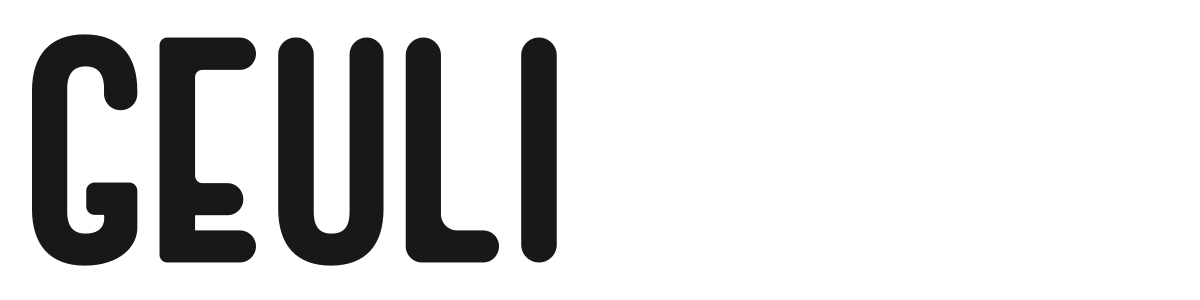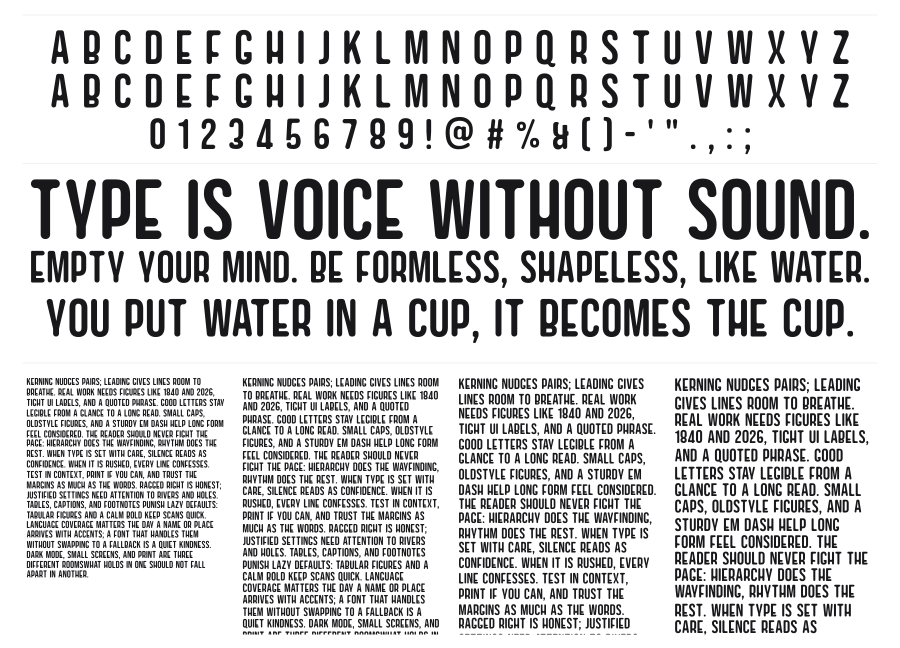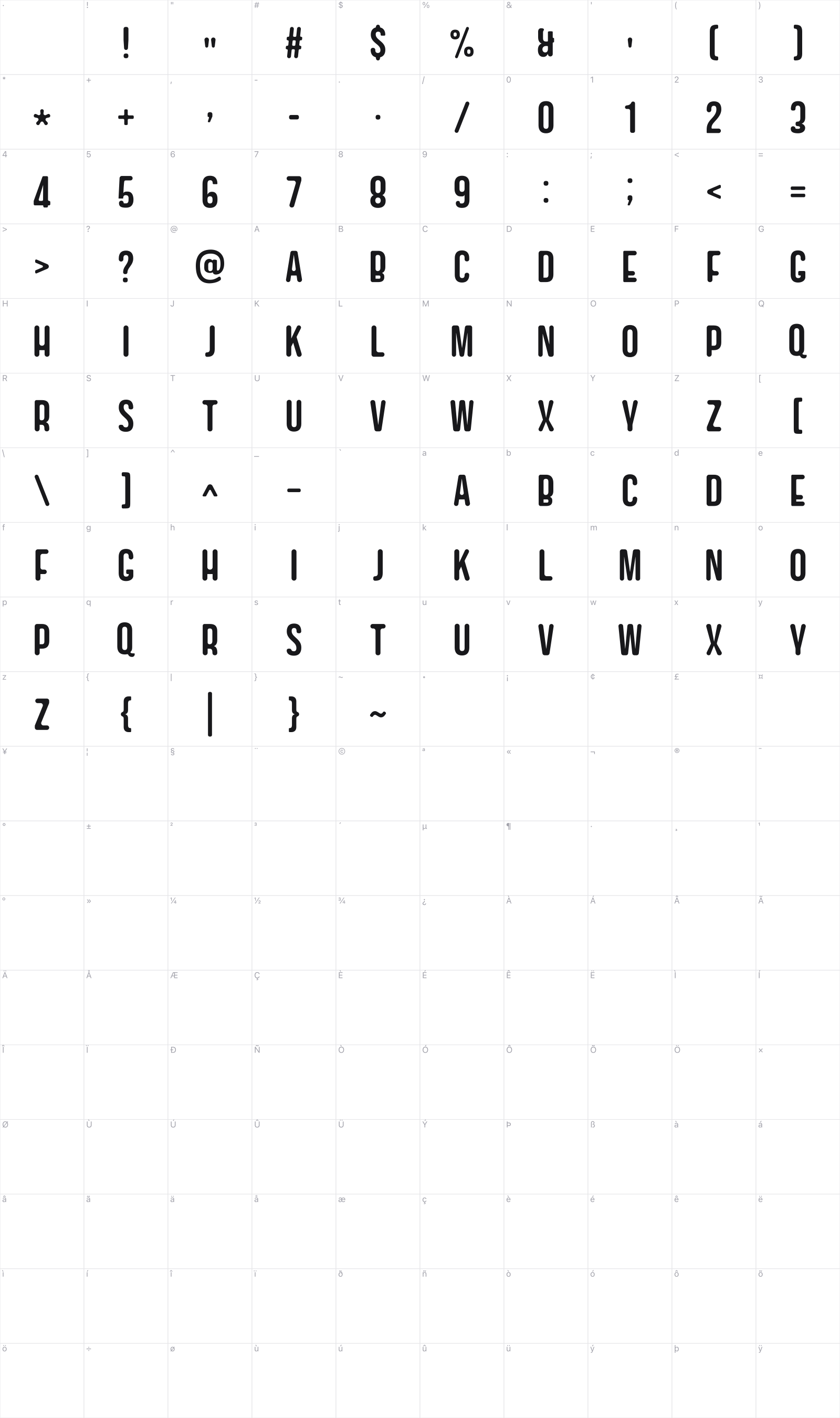
Geuli
Geuli is a bold condensed geometric sans with rounded terminals and tight, towering proportions. The near-monoweight strokes and softened stroke ends keep it feeling approachable without losing authority. Strong in logos, posters, and anywhere a headline needs presence without visual noise.